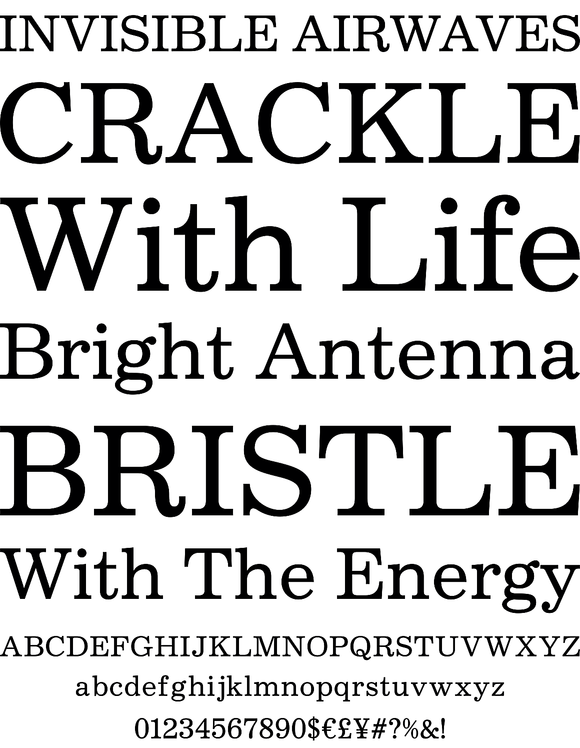
Borgis Pro
Foundry: RMU Typedesign
Borgis Pro is a robust Clarendon-style font family, intended for use in body texts even on rough papers as well as in web design. All styles include small caps and oldstyle figures.